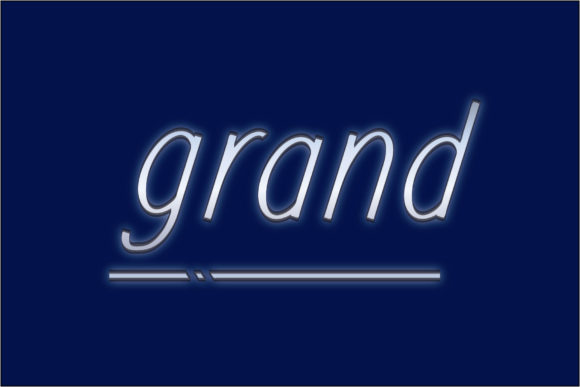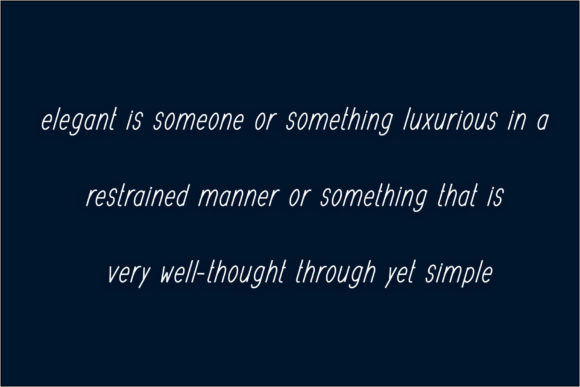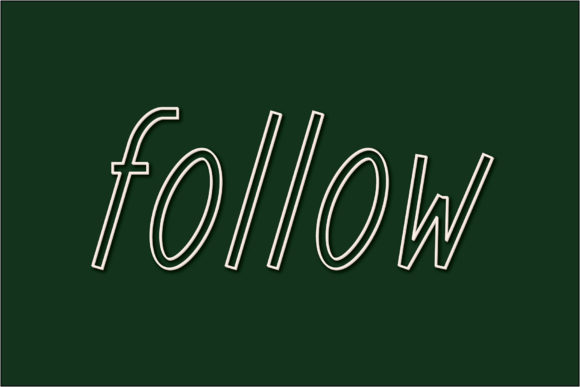
Elegant Font: Elevate Your Design with Sophistication
In the world of typography, fonts play a crucial role in conveying the tone and aesthetic of a design. For designers and crafters seeking to add a touch of sophistication to their work, the Elegant font is an excellent choice. This stunning Sans Serif font features narrow letters and a slight slant, making it perfect for a variety of design applications.
What is Elegant Font?
Elegant is a Sans Serif font that boasts a sleek and modern design. Characterized by its narrow letters and subtle slant, this font exudes elegance and refinement. Sans serif fonts, in general, are known for their clean and minimalist appearance, making them highly legible and versatile.
Key Features of Elegant Font
- Narrow Letters: The Elegant font features narrow letters that are perfect for creating a sense of luxury and sophistication.
- Slight Slant: The subtle slant of this font adds a touch of dynamism and elegance to any design.
- Sans Serif: As a sans serif font, Elegant boasts a clean and minimalist appearance that ensures great readability.
Benefits of Using Elegant Font
The Elegant font offers several benefits that make it an excellent choice for designers and crafters. Some of the key advantages include:
- Great Readability: The clean and minimalist design of Elegant font ensures excellent readability, making it perfect for body text.
- Versatility: This font can be used in a variety of design applications, from print materials to digital platforms.
- Sophistication: The Elegant font adds a touch of sophistication and luxury to any design, making it ideal for high-end brands and creative projects.
Design Applications for Elegant Font
The Elegant font can be used in a wide range of design applications, including:
- Print Materials: Use Elegant font for business cards, brochures, and other print materials to create a lasting impression.
- Digital Platforms: This font is perfect for websites, social media graphics, and other digital platforms where readability and style are crucial.
- Branding: The Elegant font is ideal for creating a sophisticated brand identity that exudes luxury and refinement.
Tips for Using Elegant Font Effectively
To get the most out of the Elegant font, follow these tips:
- Use it sparingly: While the Elegant font is stunning, it’s best to use it sparingly to avoid overwhelming the design.
- Pair it with other fonts: Experiment with pairing Elegant font with other fonts to create a unique and visually appealing design.
- Adjust font size: Adjust the font size to ensure optimal readability and visual impact.
| Font Name | Elegant Font |
| Author | Designvector10 |
The Elegant font is a sophisticated and versatile Sans Serif font that features narrow letters and a slight slant. With its great readability and luxurious aesthetic, this font is perfect for designers and crafters seeking to elevate their designs. Whether used in print materials, digital platforms, or branding applications, the Elegant font is sure to make a lasting impression.